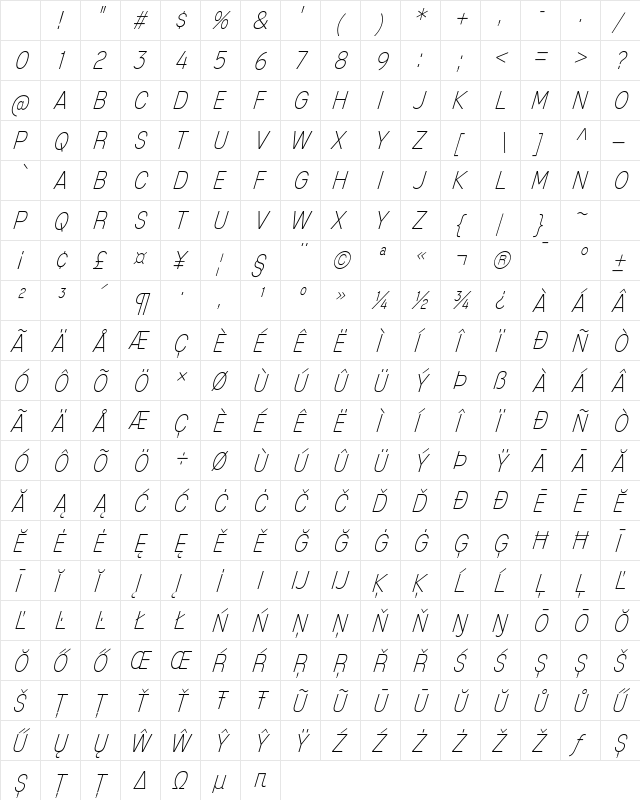
Complete Mixolydian Titling ExtraLight Italic glyph index. Displaying only characters natively supported by Mixolydian Titling ExtraLight Italic font.
Mixolydian Titling is a composed and adaptable typeface that performs quietly and consistently across a wide range of design contexts. The slanted form adds forward momentum and visual energy. Its slender proportions lend an understated elegance to any composition.